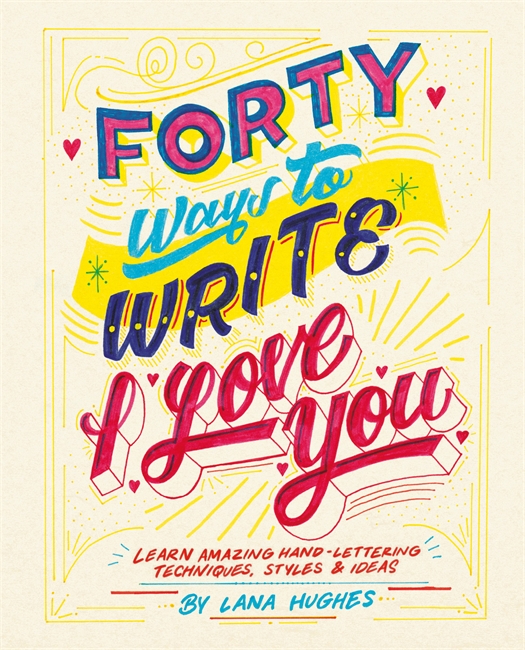
Forty Ways to Write I Love You: Learn amazing hand–lettering techniques, styles and ideas
Learn 40 creative hand-lettering styles.
Starting with an overview of necessary materials and a brief introduction to the art of typography, you will master a huge range of modern calligraphy styles.
Easy to follow step-by-steps will teach you how to use frames, borders, shapes, banners, and other decorative flourishes to enhance your penmanship.
Practise pages accompanying each style invite you to try out your newfound lettering skills.
This lettering book has one major difference: Each unique design says 'I Love You' in a different language.